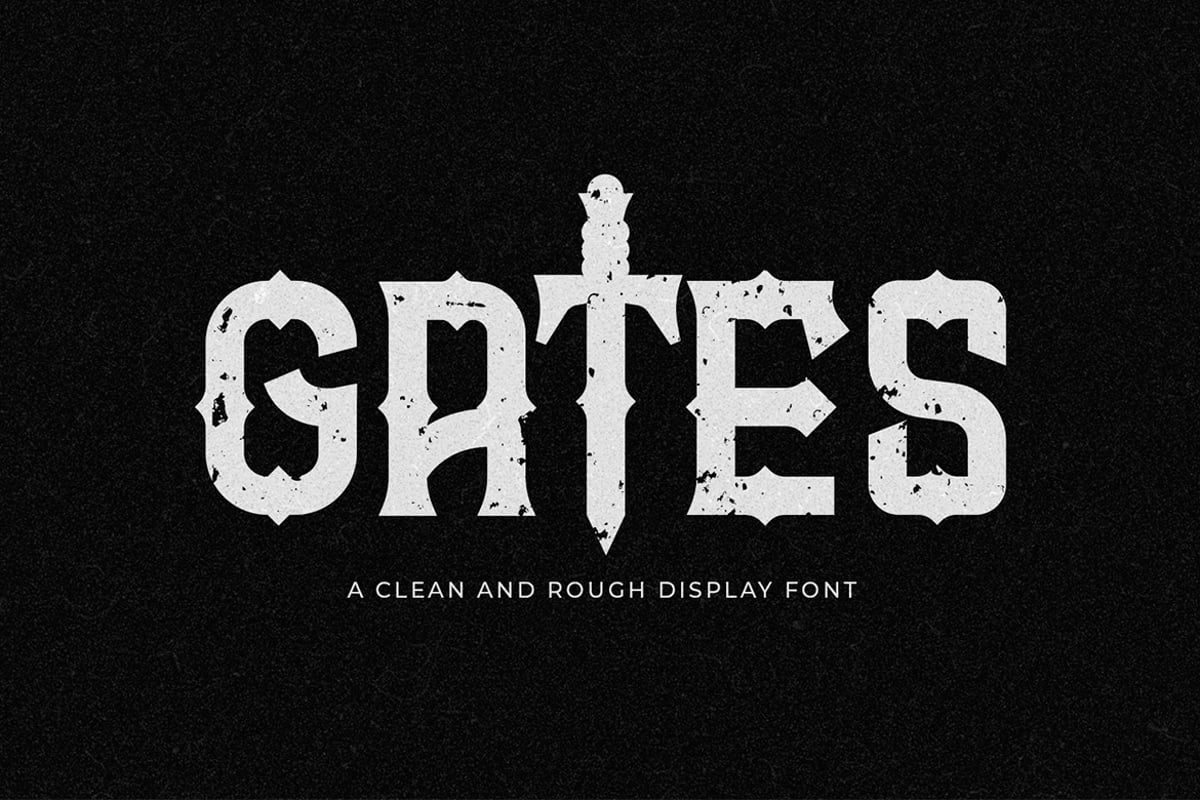
Gates - Display Font
Command attention with Gates - a bold vintage display font that merges clean structure with rugged distressed texture.
This powerful typeface brings medieval strength to modern design projects. Its gritty aesthetic and vintage styling make it the perfect choice for impactful posters, memorable logos, compelling game titles, and striking tattoo designs.
Gates delivers raw visual power for any project demanding a bold, historical edge.
- Clean and rough styling
- Uppercase letters (ALL CAPS)